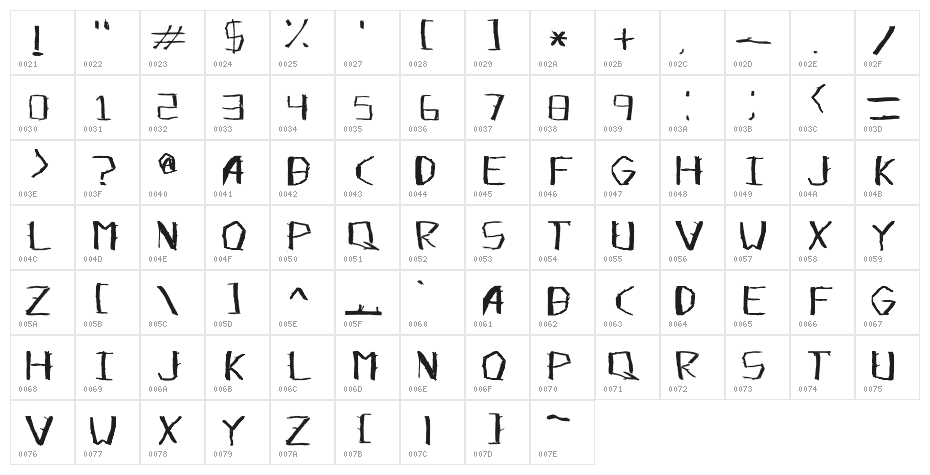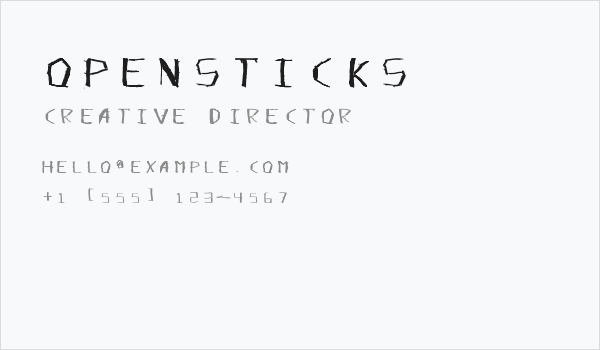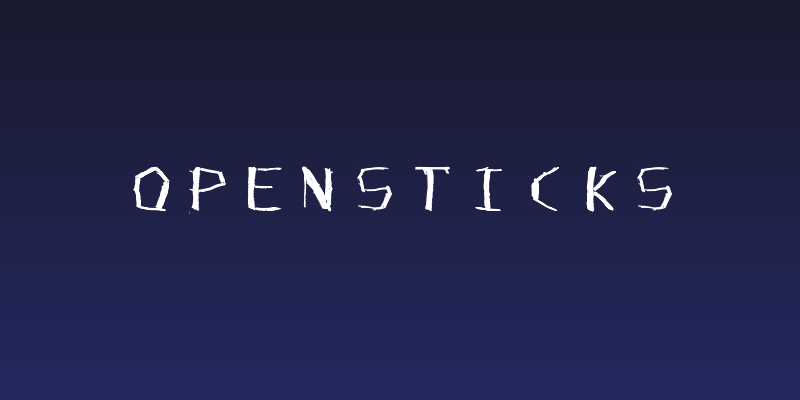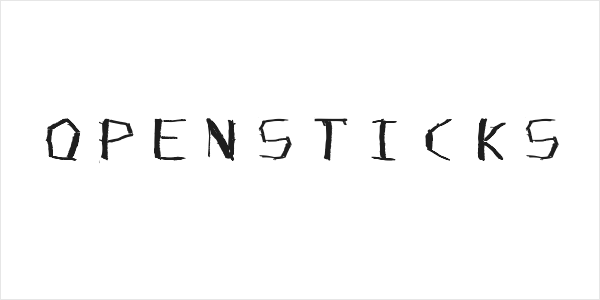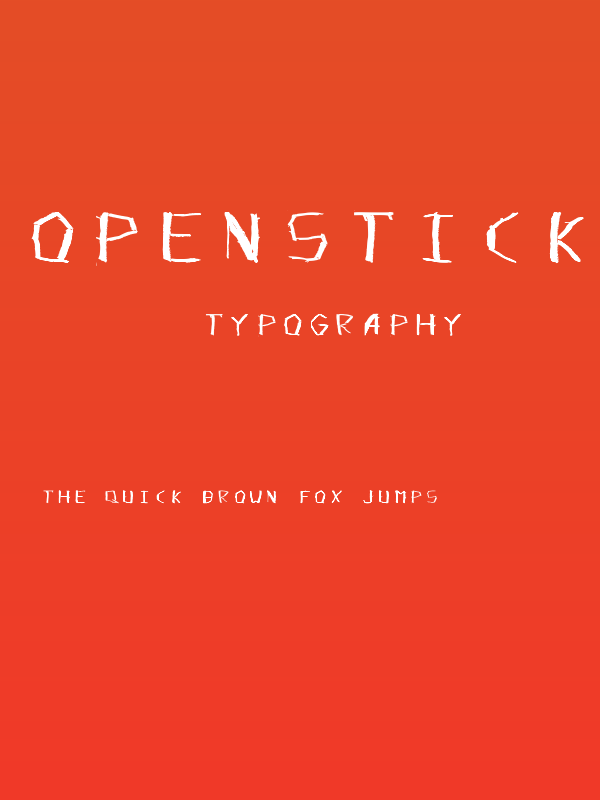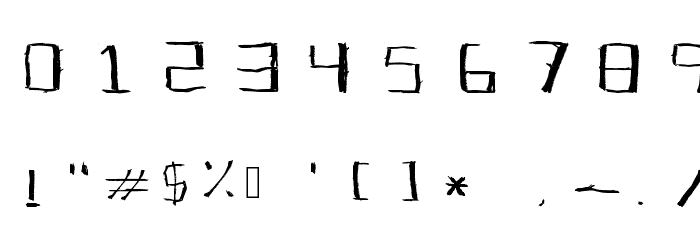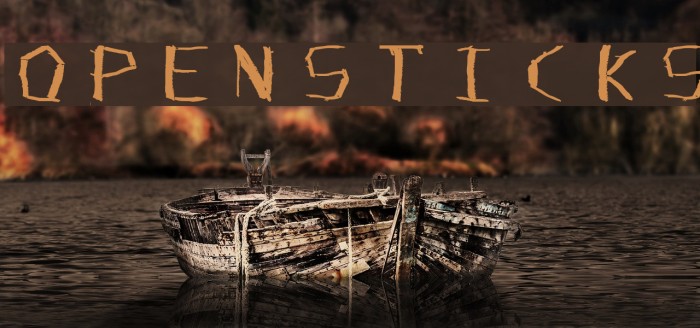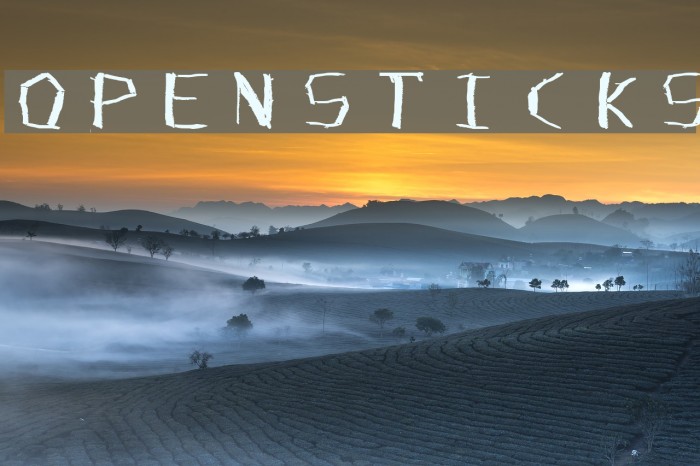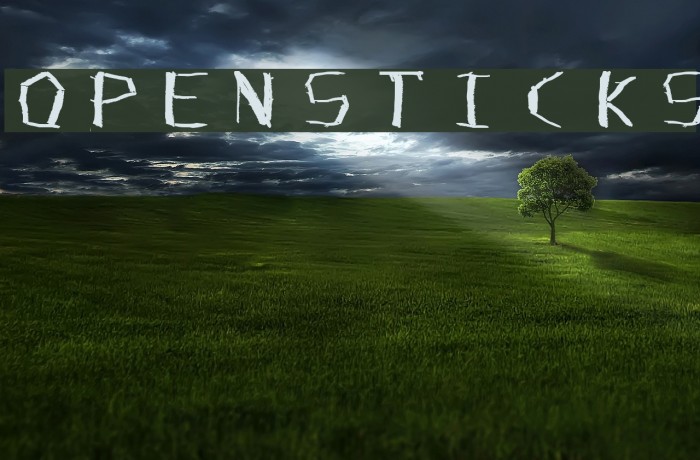
OpenSticks Font
OpenSticks Description
This font features a unique, hand-drawn style that resembles rough, uneven strokes, giving it a raw and organic feel. The characters are slightly irregular, with varying line thicknesses that add to its rustic charm. The uppercase and lowercase letters maintain a consistent style, with angular and sharp edges that suggest a sense of movement and energy. Numbers and special characters follow the same aesthetic, ensuring a cohesive look across all glyphs. This font is ideal for projects that require a touch of authenticity and a handcrafted appearance.
OPENSTICKS UPPERCASE
OPENSTICKS LOWERCASE
OPENSTICKS OTHER CHARS
| Use Case | Logos, Posters, Artistic projects |
| Proposed Projects | Perfect for artistic projects, branding, posters, and any design needing a handcrafted touch. |